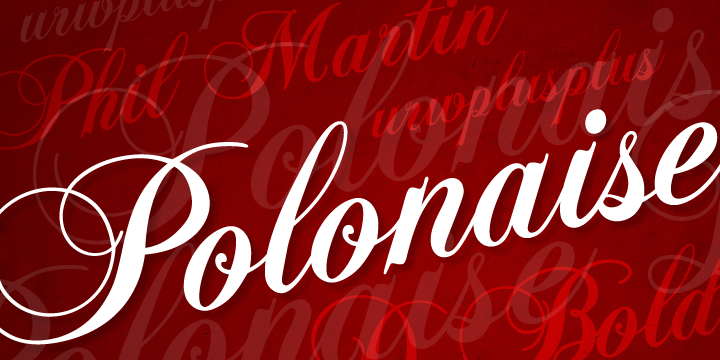
Polonaise Font excels in various design applications including wedding invitations, luxury branding, elegant logos, certificate designs, restaurant menus, fashion magazines, high-end packaging, and formal announcements. This sophisticated typeface adapts beautifully to both digital and print media, making it ideal for designers seeking refined elegance and timeless appeal.
Polonaise Font generates excitement among typography enthusiasts due to its exquisite blend of classical sophistication and ornate detailing. The font's flowing letterforms and decorative flourishes create an atmosphere of luxury and refinement that instantly elevates any design project. Its romantic character makes it particularly appealing for premium brands and special occasion materials.
The Polonaise Font family encompasses multiple weights and styles including Regular, Bold, Light, Ornate, and Script variations. Each family member maintains elegant design principles while offering distinct personality traits. The Light weight provides delicate grace for sophisticated layouts, while the Ornate version delivers elaborate visual impact for special applications.
Professional designers frequently choose Polonaise Font Free Download for projects requiring both aesthetic sophistication and emotional appeal. This typeface demonstrates remarkable versatility across luxury industries including hospitality, fashion, beauty, and premium services. Its distinctive elegance allows brands to communicate exclusivity while maintaining exceptional readability and visual charm.